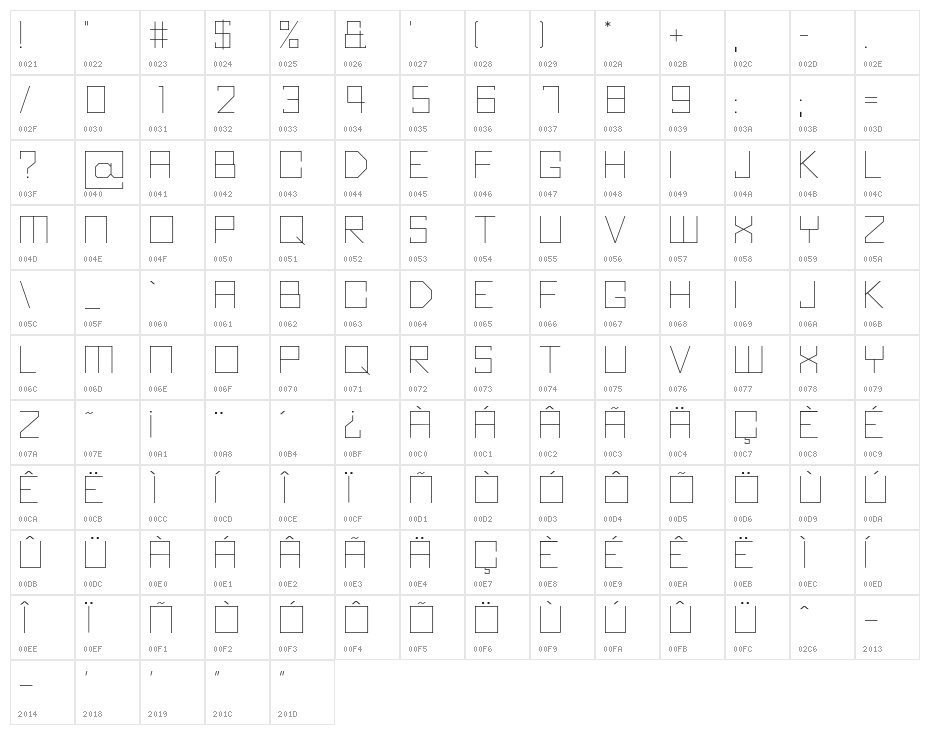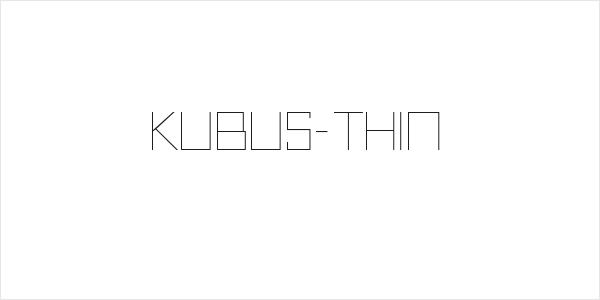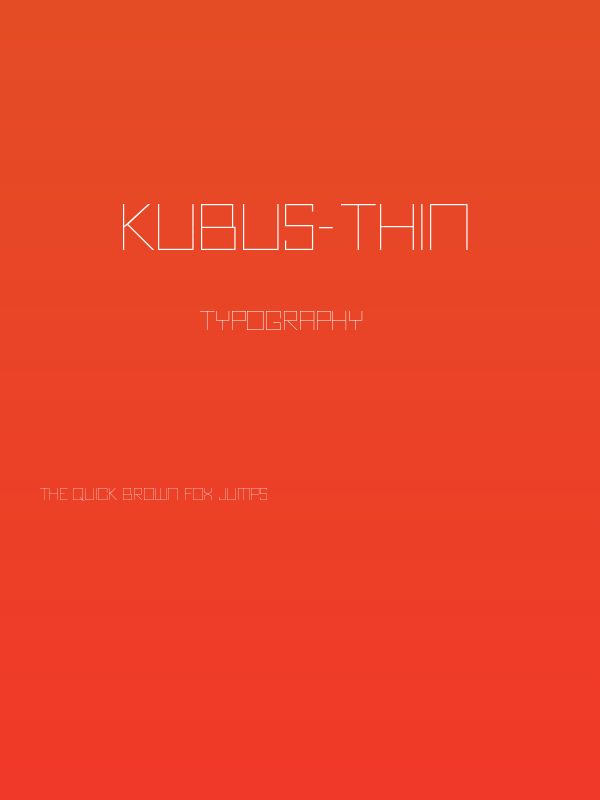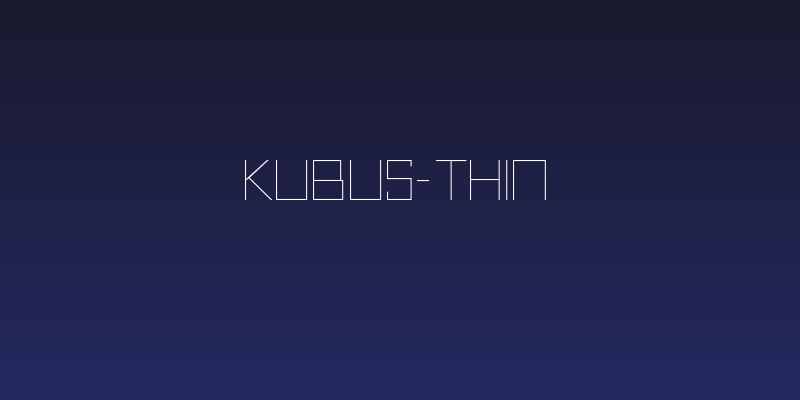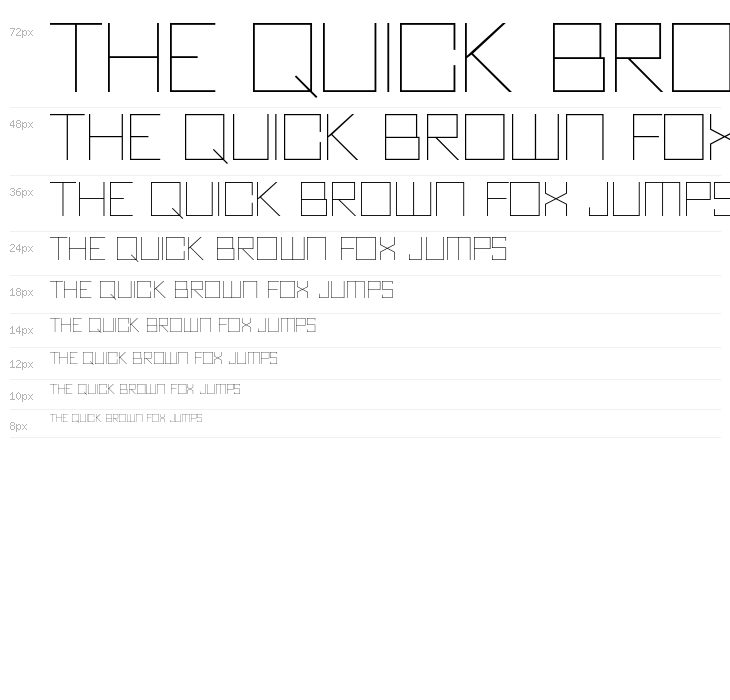
Kubus-Thin Font
Kubus-Thin Description
This font features a geometric, minimalist design with a thin, linear structure. Each character is crafted with precision, emphasizing straight lines and sharp angles, creating a modern and futuristic appearance. The uppercase and lowercase letters maintain a consistent height, contributing to a uniform look. Numbers and special characters follow the same design principles, ensuring a cohesive visual style. The font's simplicity and clarity make it suitable for digital displays and modern design projects.
| Use Case | Headlines, Logos, Digital interfaces |
| Proposed Projects | Ideal for tech branding, digital interfaces, modern art projects, and minimalist graphic designs. |